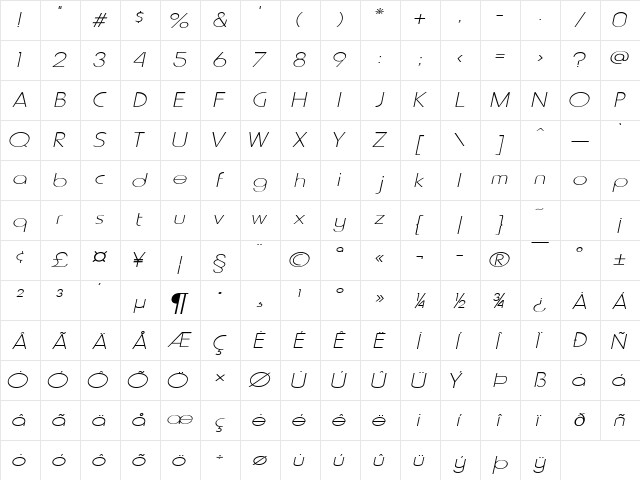
Metro-Extended Italic
Design Context for Metro-Extended Typeface
Metro-Extended is a composed and adaptable typeface that performs quietly and consistently across a wide range of design contexts. The dynamic lean of this cut emphasises speed and emphasis in any layout.
Pro Tip: Try Metro-Extended for annotation and caption copy alongside an upright companion — the contrast in angle creates a dynamic but ordered typographic system.